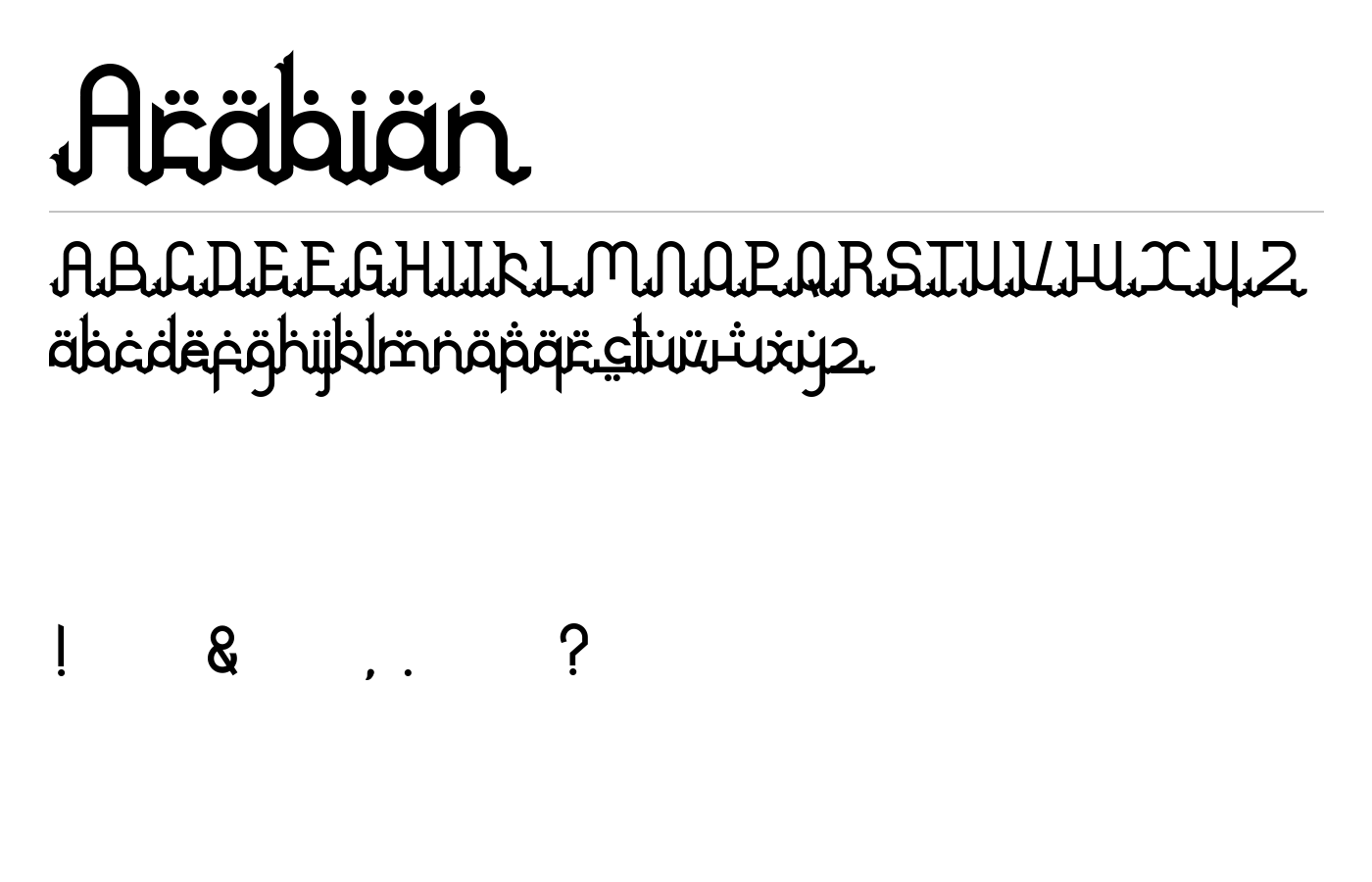
Arabian Font is a distinctive display typeface with a unique decorative style that blends modern geometric forms with intricate, ornamental details reminiscent of Arabic calligraphy. Its medium weight and narrow proportions give it an elegant yet complex character, making it perfect for eye-catching headlines, logos, and branding that seek to convey a cultural or exotic flair. This font excels in creative, artistic projects where style and personality are paramount, rather than in body text or small sizes.
Arabian Font
About Arabian Font